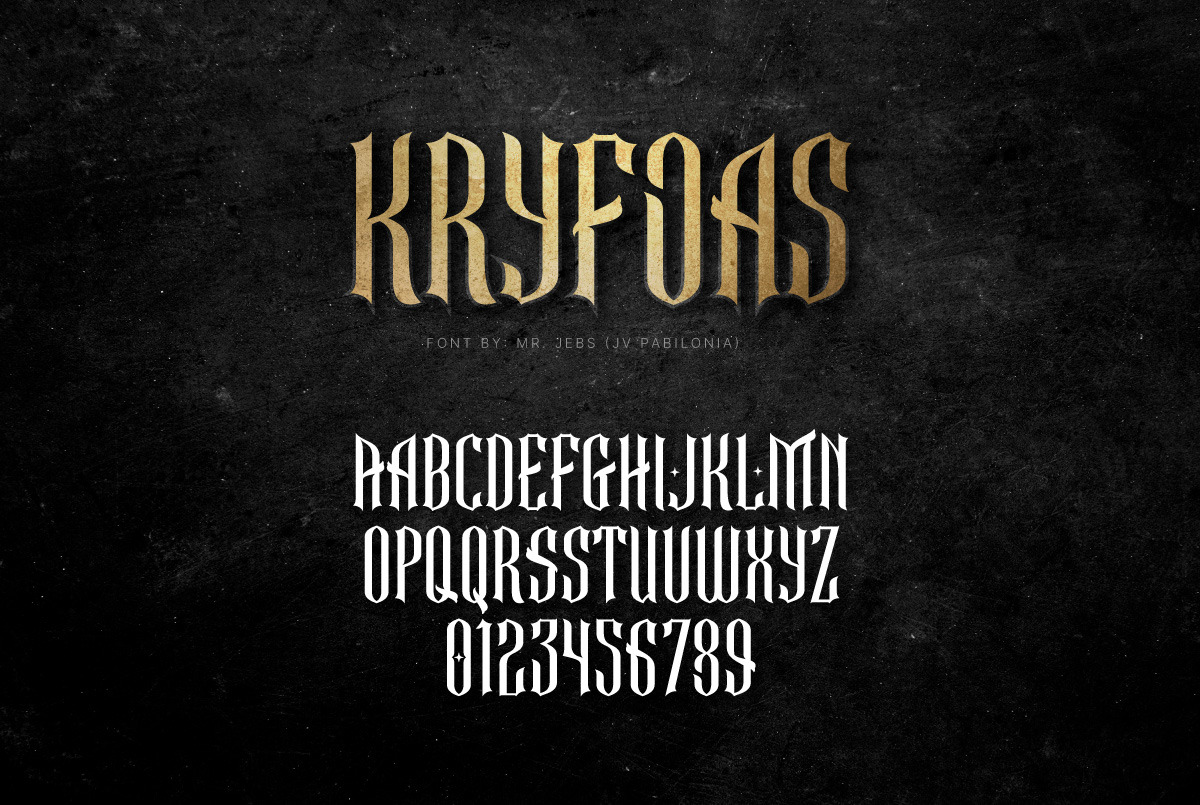
KRYFOAS Typeface
- a classic typeface for your projects
- best for T-Shirt Designs
- Only have uppercase letters, and numbers
- Some letters have alternatives